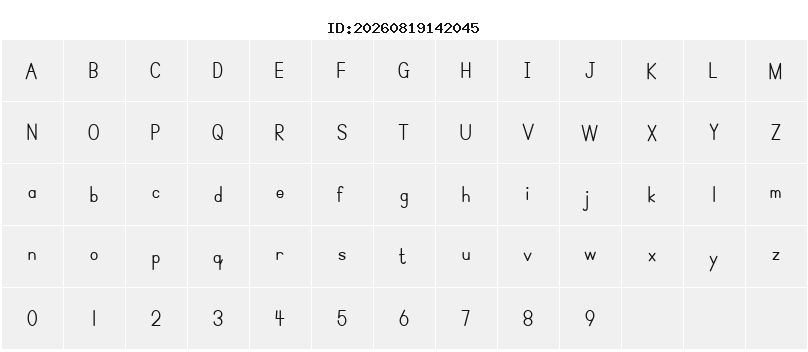
Simple Print Preview
• Font Name: Simple Print
• Designer: Peter Wiegel
• Manufacturer: Peter Wiegel
About Simple Print.ttf
Simple Print.ttf is a modern, elegant sans-serif font designed for ultimate readability and visual harmony. Perfect for branding, headlines, web design, and print materials.